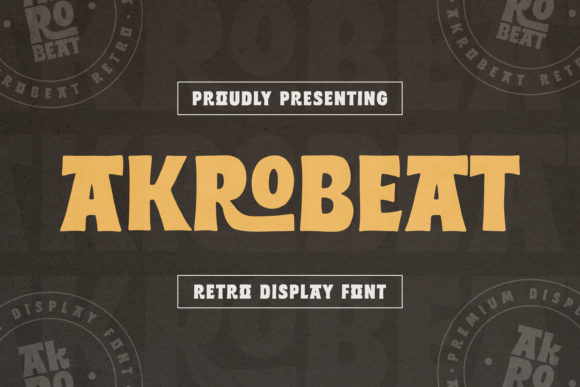
Discover the Energetic World of Akrobeat Font
Have you ever been in the middle of a creative project, and suddenly, everything feels flat? You’re not alone! I recall working on a vibrant branding project for a music festival, and I was struggling to find the perfect font that could capture the energetic vibe. That’s when I stumbled upon Akrobeat Font, and it completely transformed my design. In this article, we’ll dive into the world of Akrobeat, exploring its features, uses, and everything in between.
A Personal Review of Akrobeat Font
What I Love About Akrobeat ✨
- ✅ Bold and Impressive: Akrobeat is a display font that packs a punch. Its bold and impressive design makes it perfect for creative projects that need to stand out.
- ✅ Creative and Fun: This font is not just bold; it’s also playful and fun. It adds a touch of personality to any design.
- ✅ Versatile: Akrobeat can be used for a wide range of projects, from branding and advertising to packaging and more.
- ⚠️ Limited Use Cases: While Akrobeat is amazing for display purposes, it might not be the best choice for body text or smaller sizes.
- ⚠️ Glyph Limitations: Some users might find the glyph set limited, especially when compared to more extensive font libraries.
The Backstory of Akrobeat Font
Akrobeat was designed with the goal of creating a font that could capture the energy and excitement of music and art. The designer aimed to craft a typeface that would be both bold and playful, making it perfect for creative projects that need to stand out. While the actual design process and inspiration might be shrouded in mystery, it’s clear that Akrobeat has become a beloved font among designers and creatives.
| Font Name | Akrobeat Font |
| Author | ovoz.graphics |
| What is Akrobeat Font best used for? | Akrobeat Font is best used for creative projects that need a bold and impressive display font, such as branding, advertising, and packaging. |
| Can I use Akrobeat for body text? | While Akrobeat can be used for body text, it’s primarily designed as a display font. For smaller sizes, you might want to consider a more legible font. |
Akrobeat Font is undoubtedly a powerful tool for any creative project. Its bold and playful design makes it perfect for taking your creations to the next level. Whether you’re a designer, crafter, or creative hobbyist, Akrobeat is sure to inspire and elevate your work.